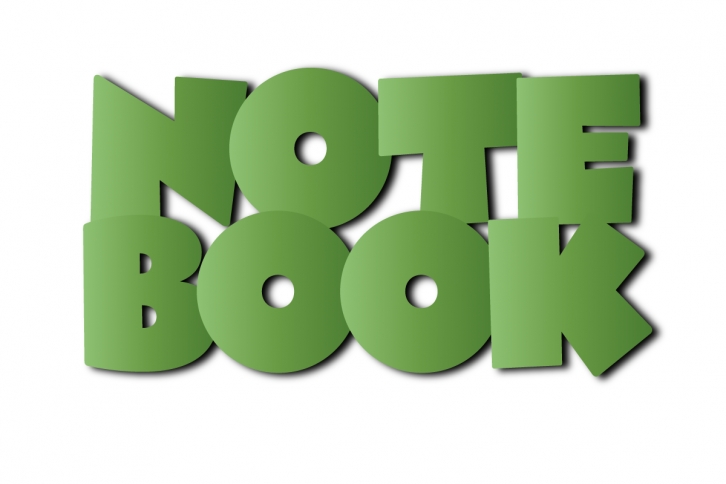
NoteBook is an extra thick lettered display font. It looks incredibly cool on cartoon and children book titles, game covers, and so on. The only limit is your imagination!